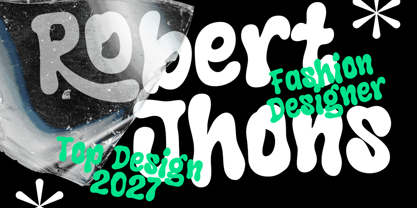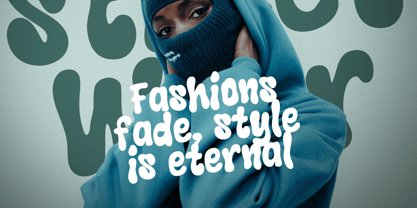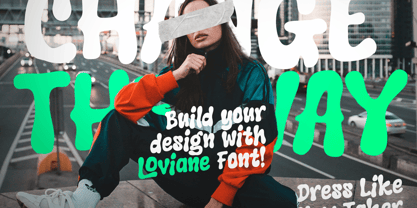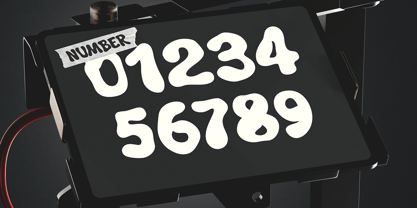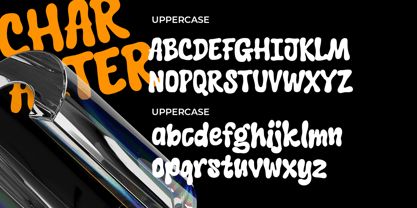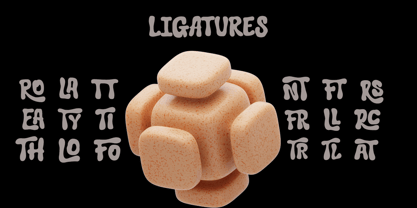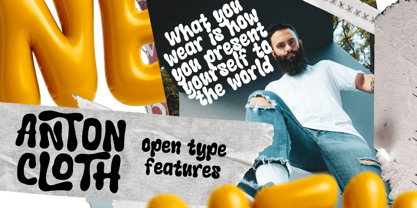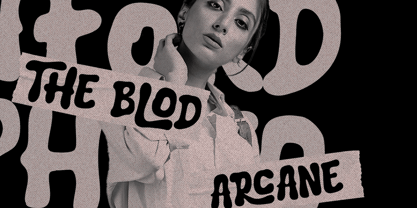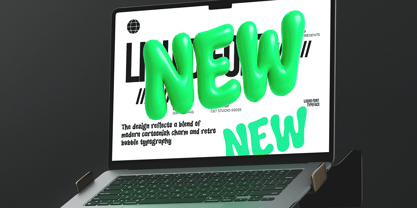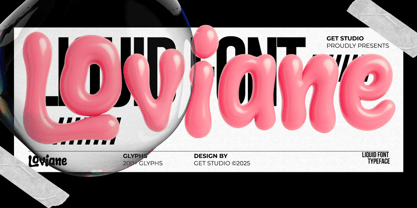
Loviane
Loviane is a playful liquid-style typeface that brings fun and freshness into your design. Its smooth, bubble-like shapes feel alive, making every word look bold, juicy, and eye-catching. Inspired by the flow of liquid and the softness of inflated balloons, Loviane adds a touch of fun and modern creativity wherever it’s used.
With 200+ glyphs, Loviane comes packed with alternates and numbers, giving you freedom to experiment and create truly unique designs. Perfect for branding, packaging, posters, social media graphics, event headlines, or any project that needs a splash of bubbly personality.
⚠️ Please note: the glossy 3D effect shown in the previews is for presentation purposes only and is not included in the font file. Loviane is delivered as a standard, clean vector font.
Make your designs stand out with Loviane — because type should feel as lively as your ideas.